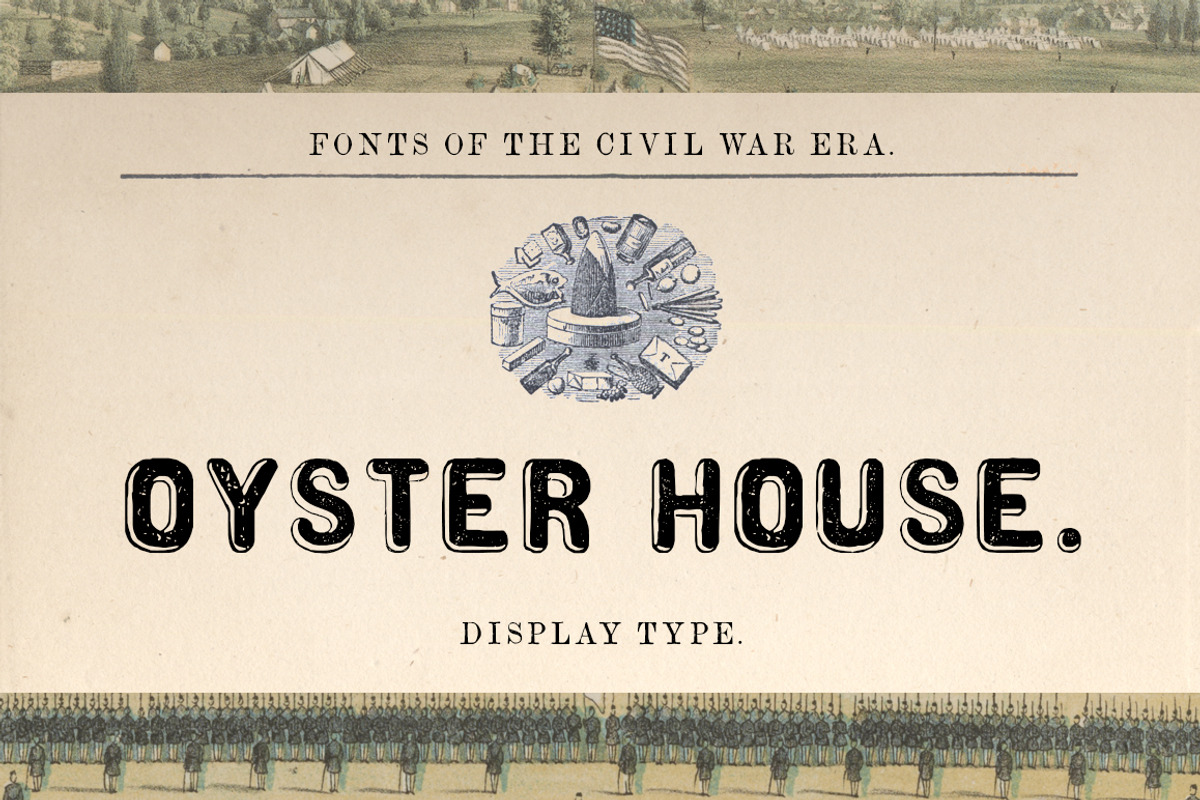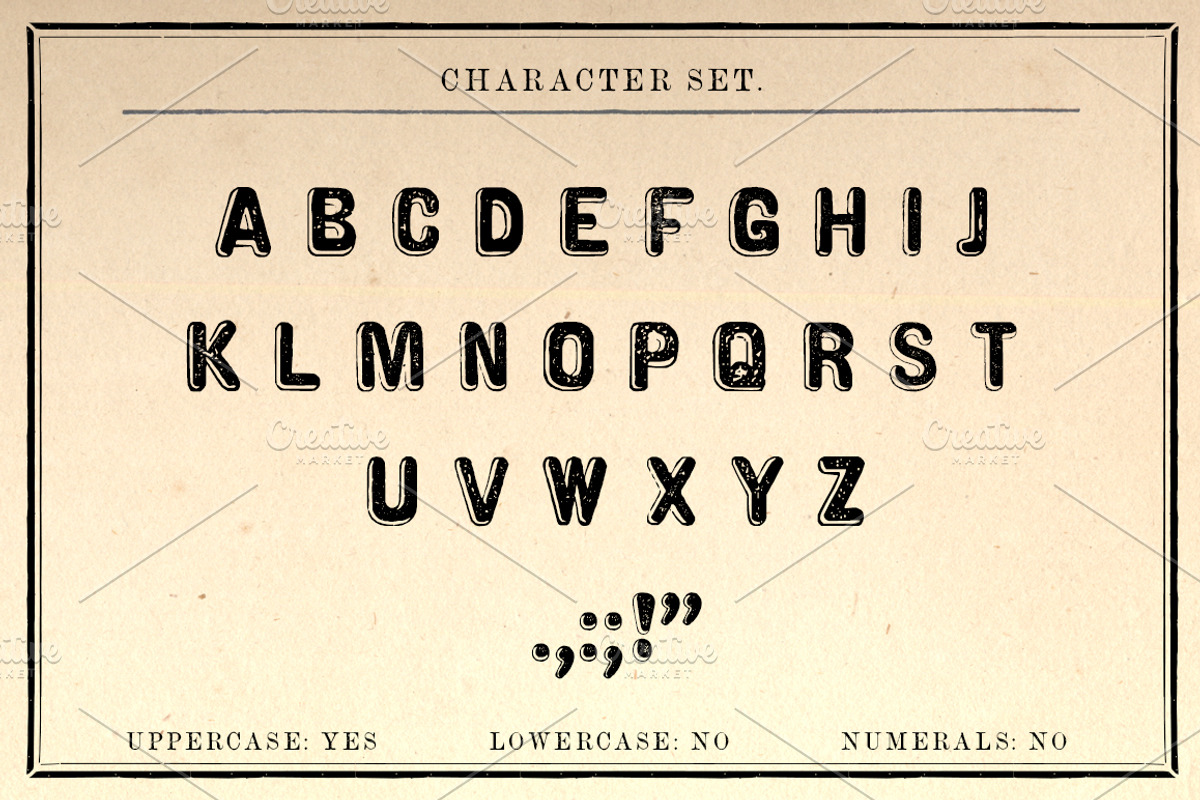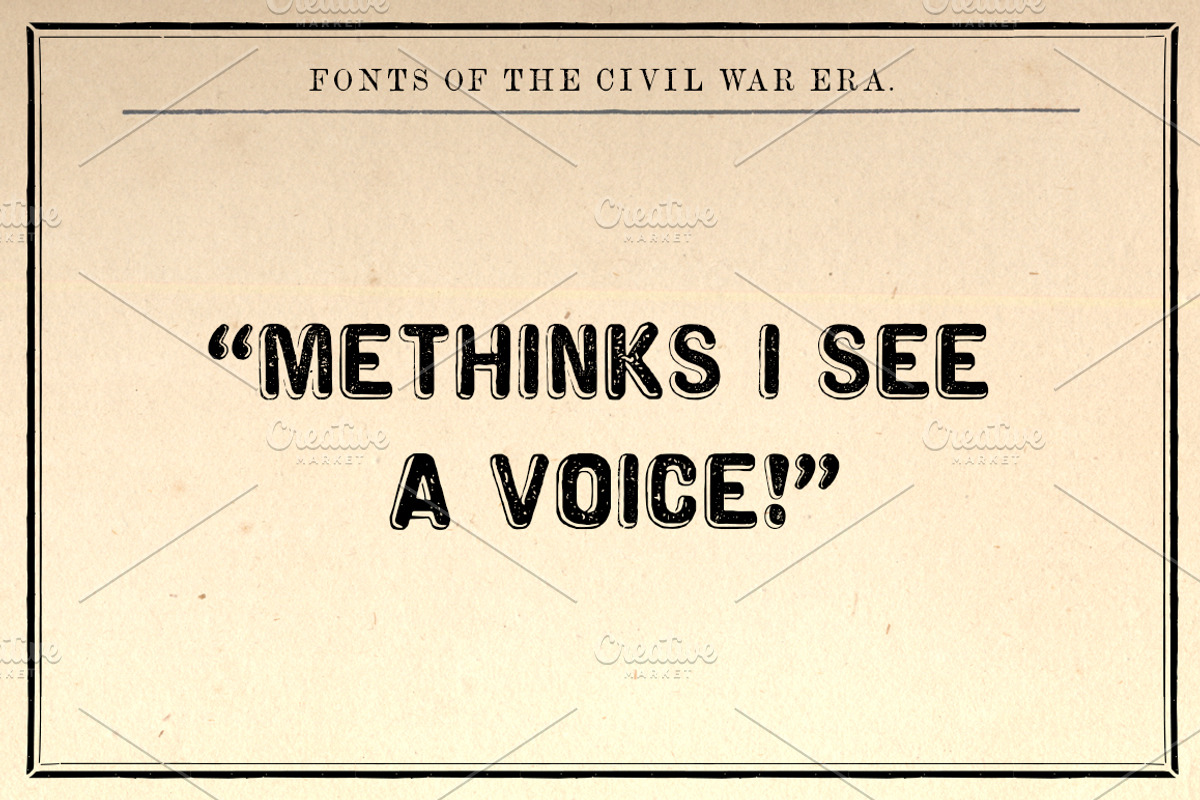
Oyster House Display Font
Oyster House Regular OTF is a san serifed display font that comes from Volume 2 of The New Blazing Star Press's "Printer's Type Case."
This font is ideal for museums, historical reenactors and living historians, graphic designers, and all lovers of historical typography. Create stunning book covers, band logos and album art, and other high-impact branding projects. Also perfect for game design, packaging design, magazine imagery, wedding invitations, and much more.
- Unique Letterforms
The lowercase features a slight variant of the uppercase alphabet.
This font DOES NOT include LOWERCASE or NUMBERS, as they did not exist in the original font. Only basic punctuation is included.
It was very common for 19th century typesetters to use other fonts to substitute punctuation and numerals missing from a particular typeface.
Since they were scanned directly from the pages of original 150 year-old documents, the letters show imperfections common to letterpress printing.
WHAT'S BEHIND THE NAME "OYSTER HOUSE"?
While still a favorite of today’s seafood lover and adventurous eater, the oyster was wildly popular in the mid-19th century. Scores of reputable oyster bars and restaurants like Washington’s Norfolk Oyster Depot, as well as street peddlers pushing oyster carts, could be found in cities along the coast. In New York, the red light of the oyster cellars drew out the seedier element of the city to sup on brandy, cheap cigars, and cold oysters at the marbled bar, or sequestered in private eating booths.
All of our Civil War-era historical fonts were copied entirely from ORIGINAL LETTERS scanned from type specimen, business directories, song sheets, broadsides, and advertisements, printed between 1848 and 1867 gathered from museums, private collections, and the Library of Congress. No cheap work done, but instead with a neatness not to be excelled in the Typographical Art.